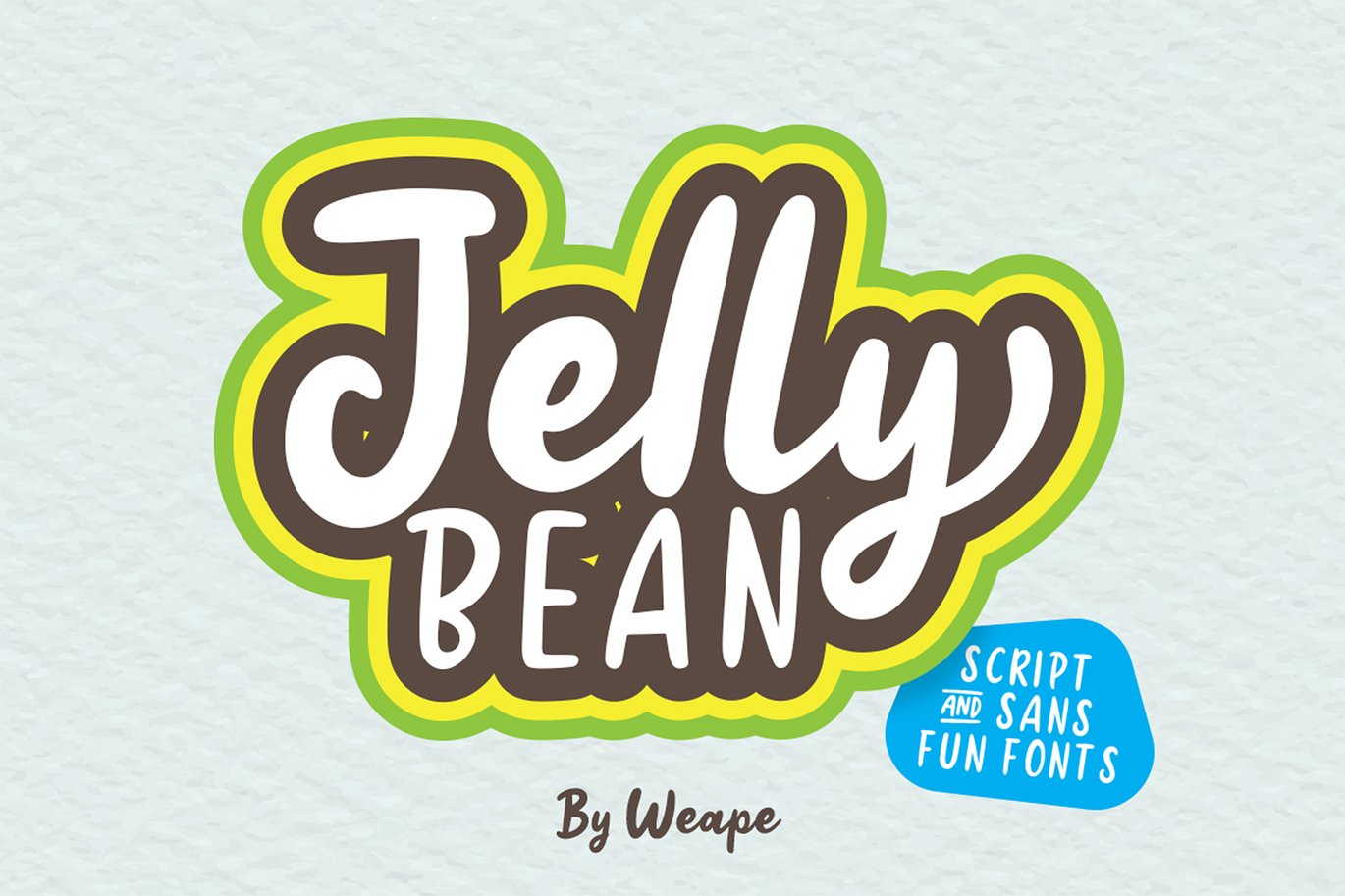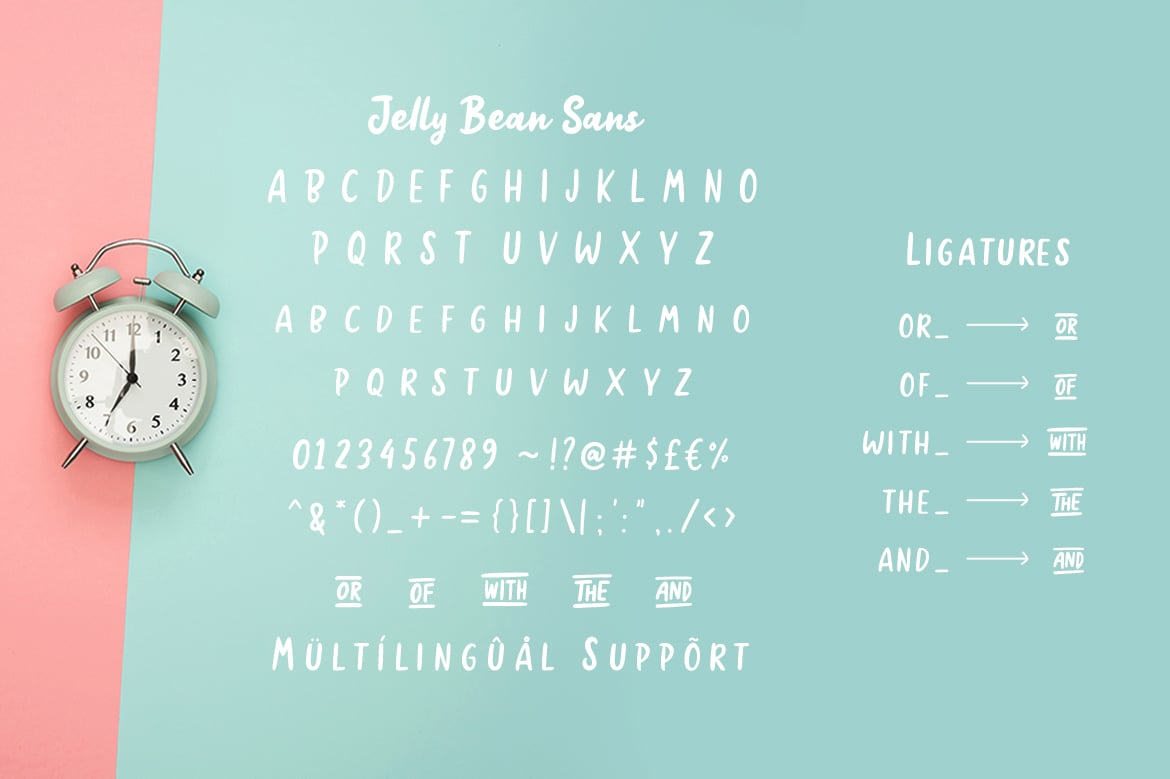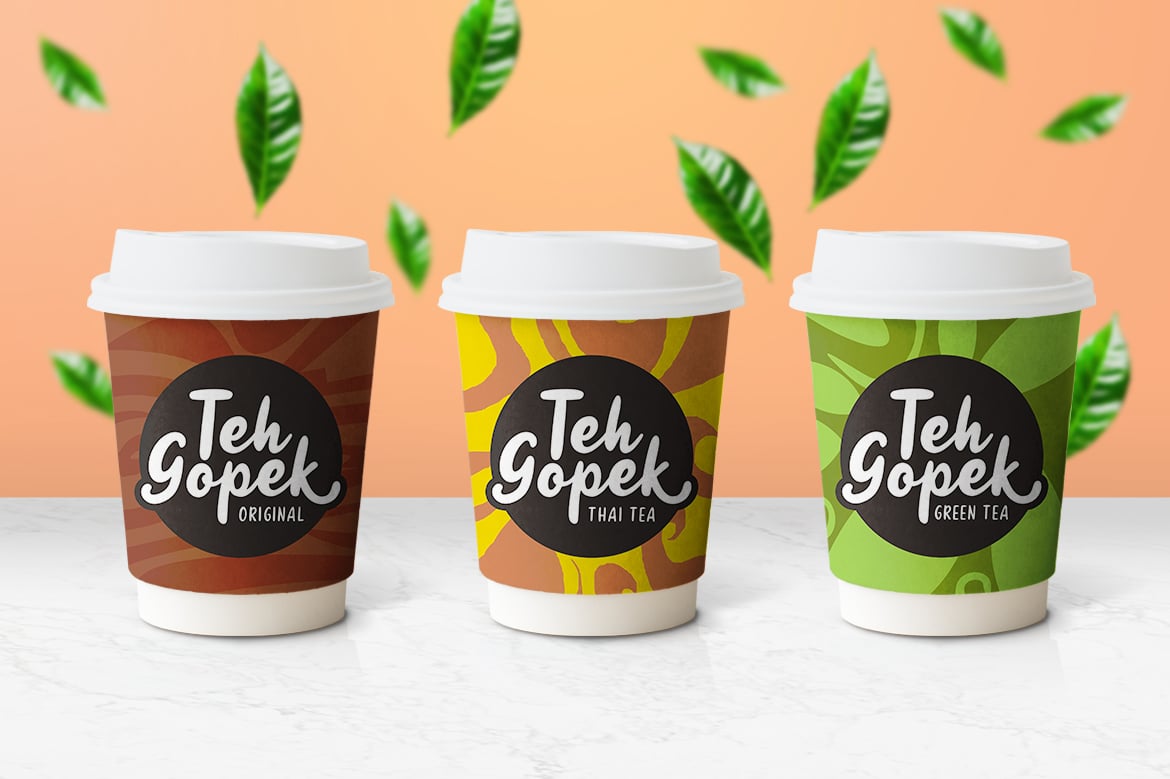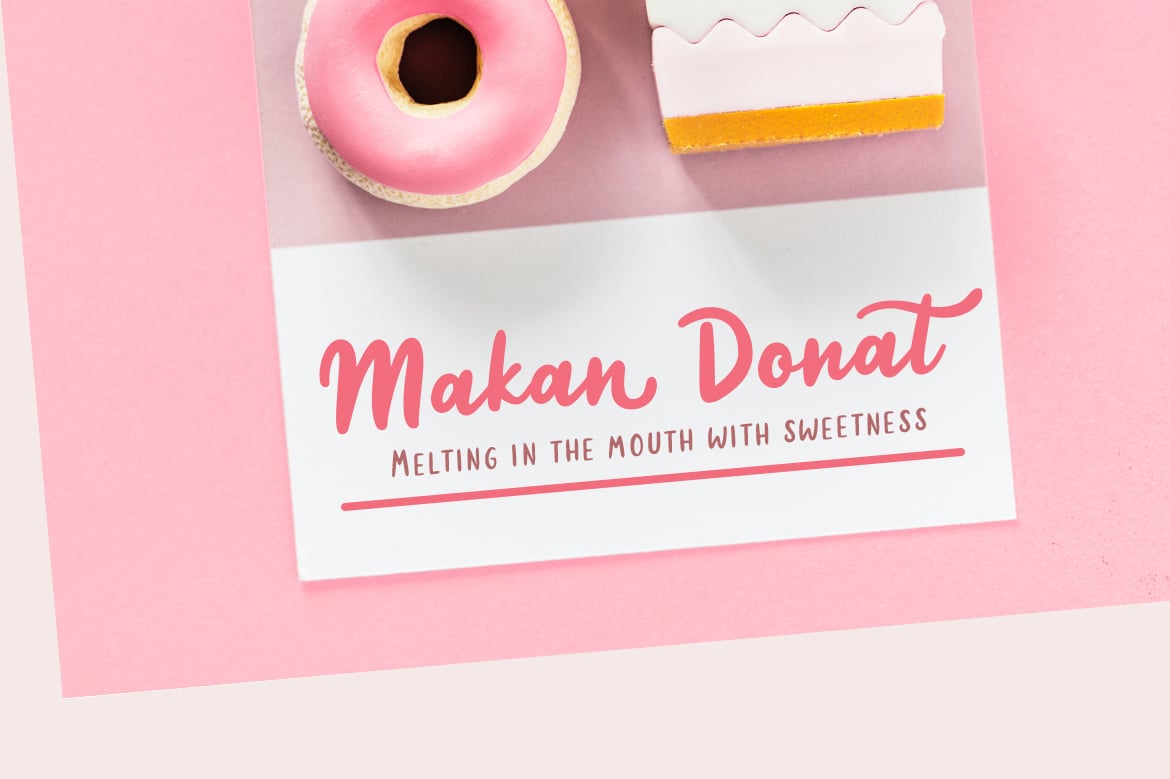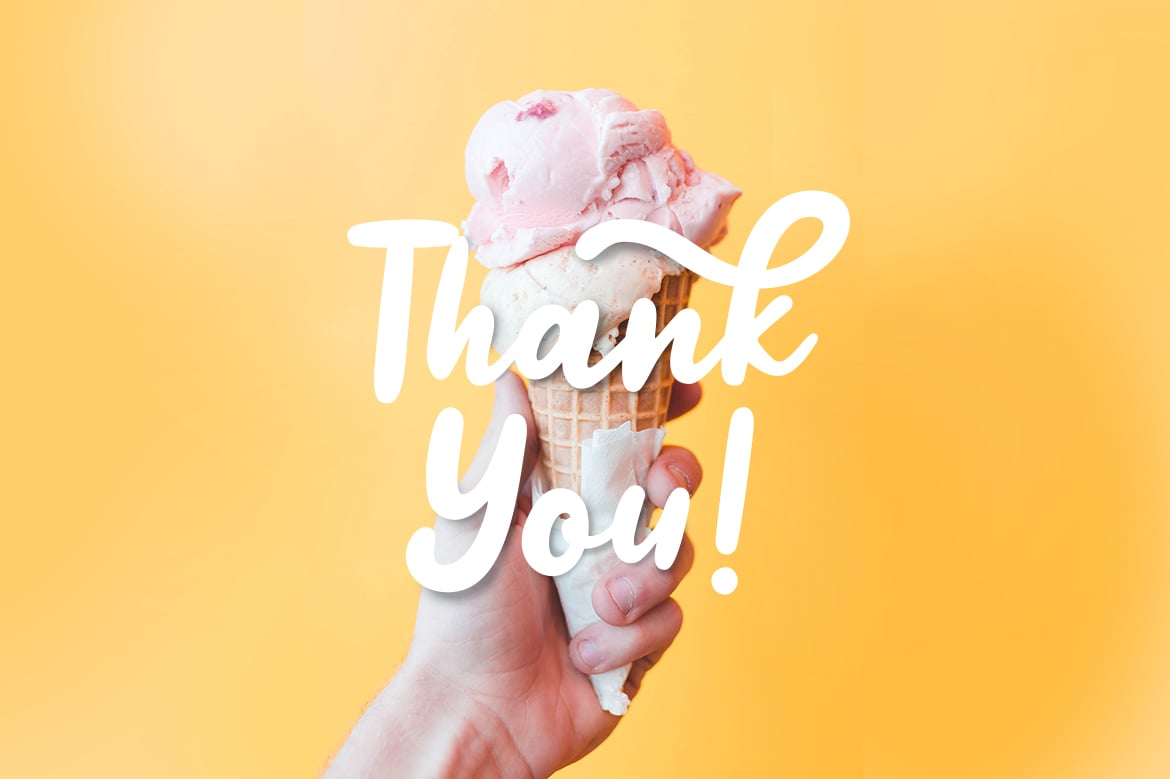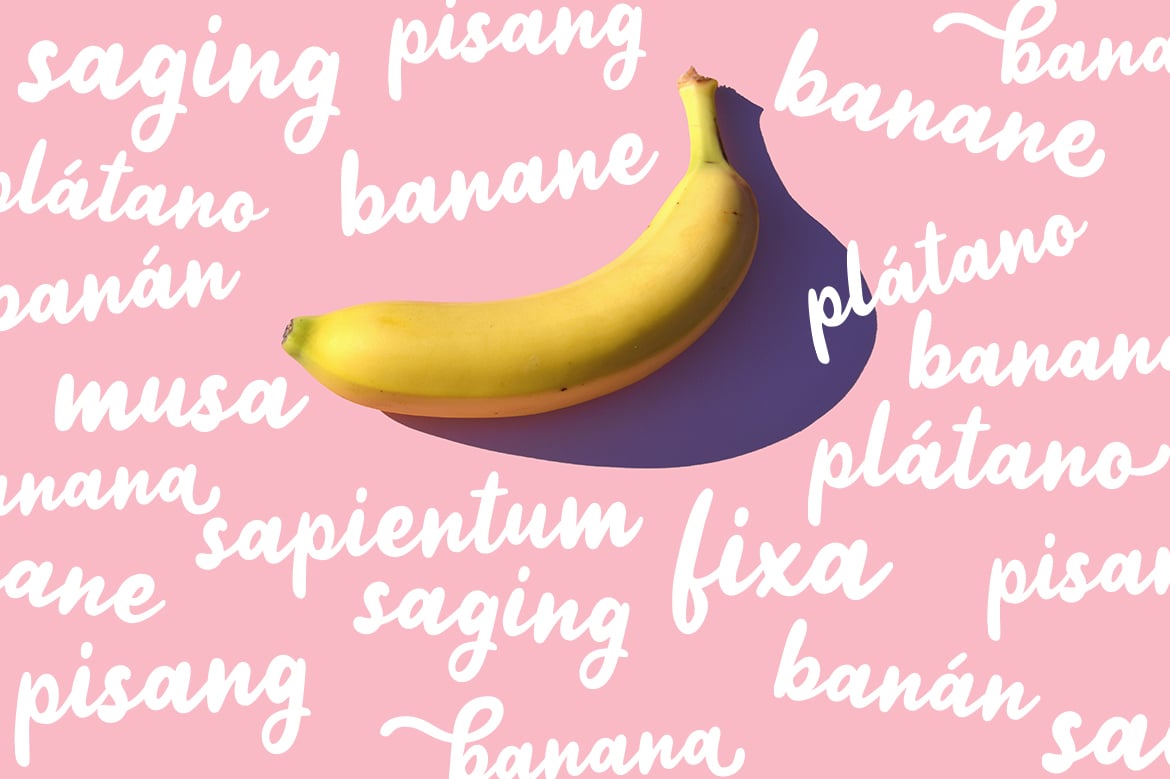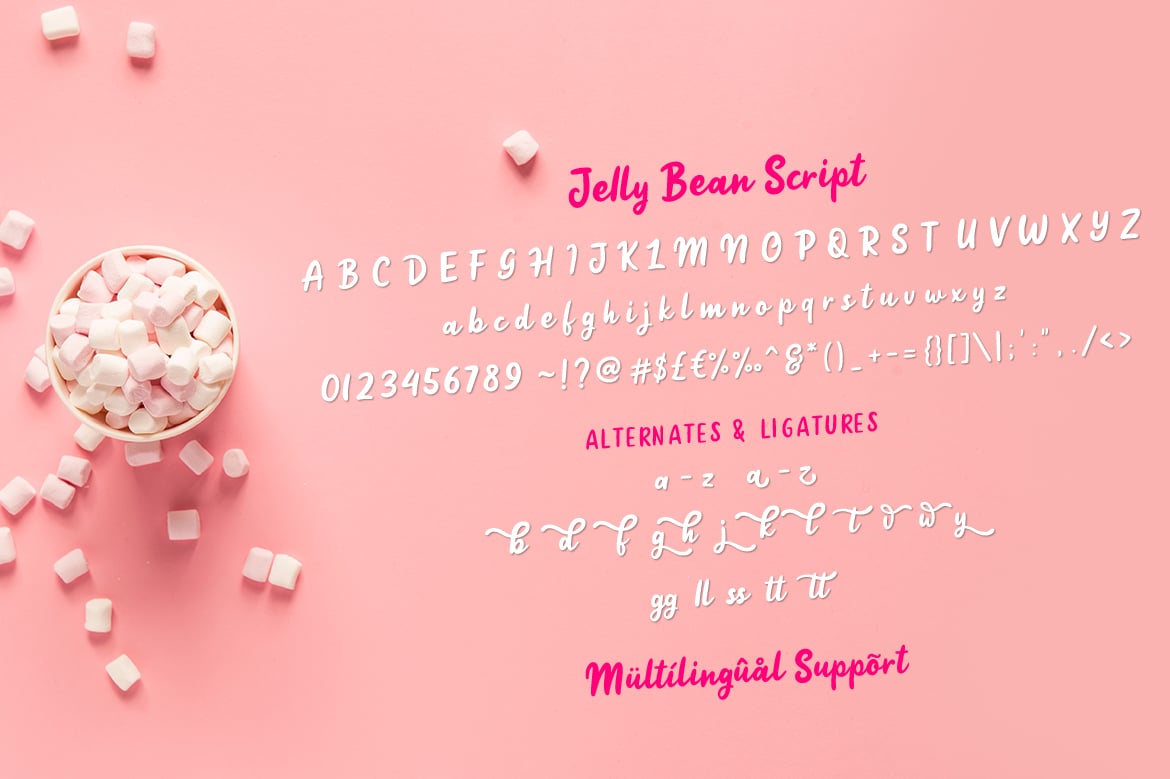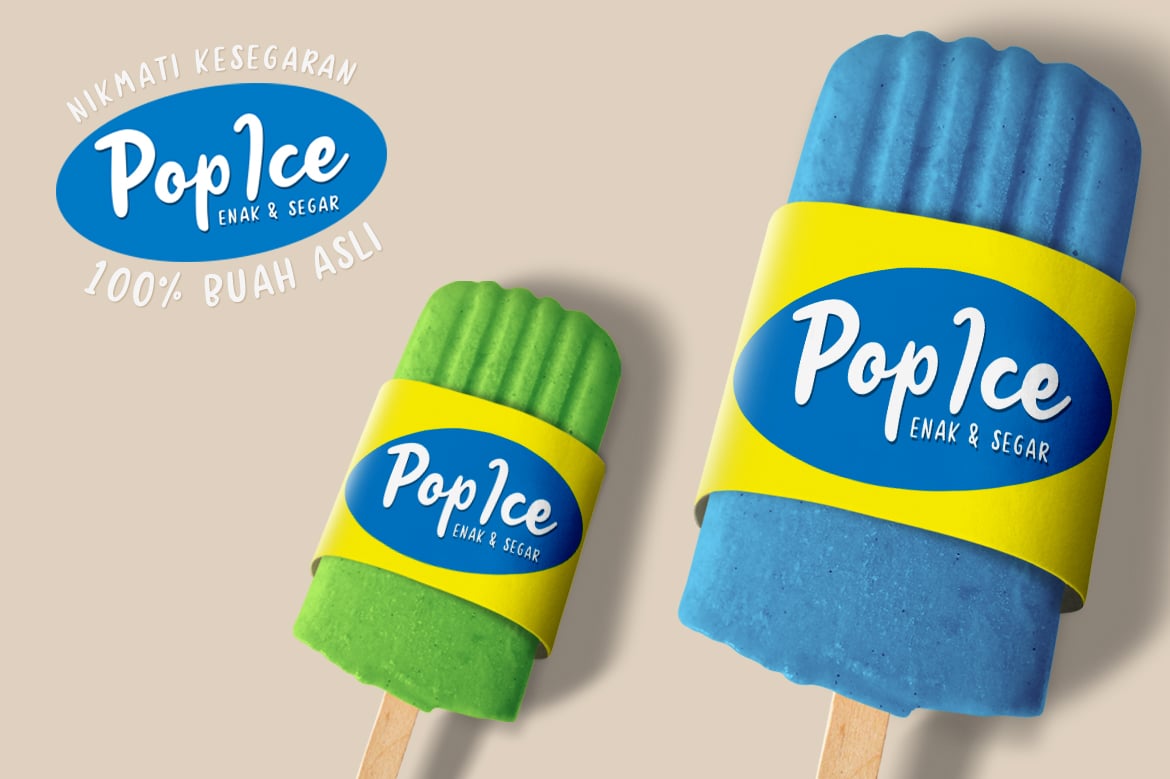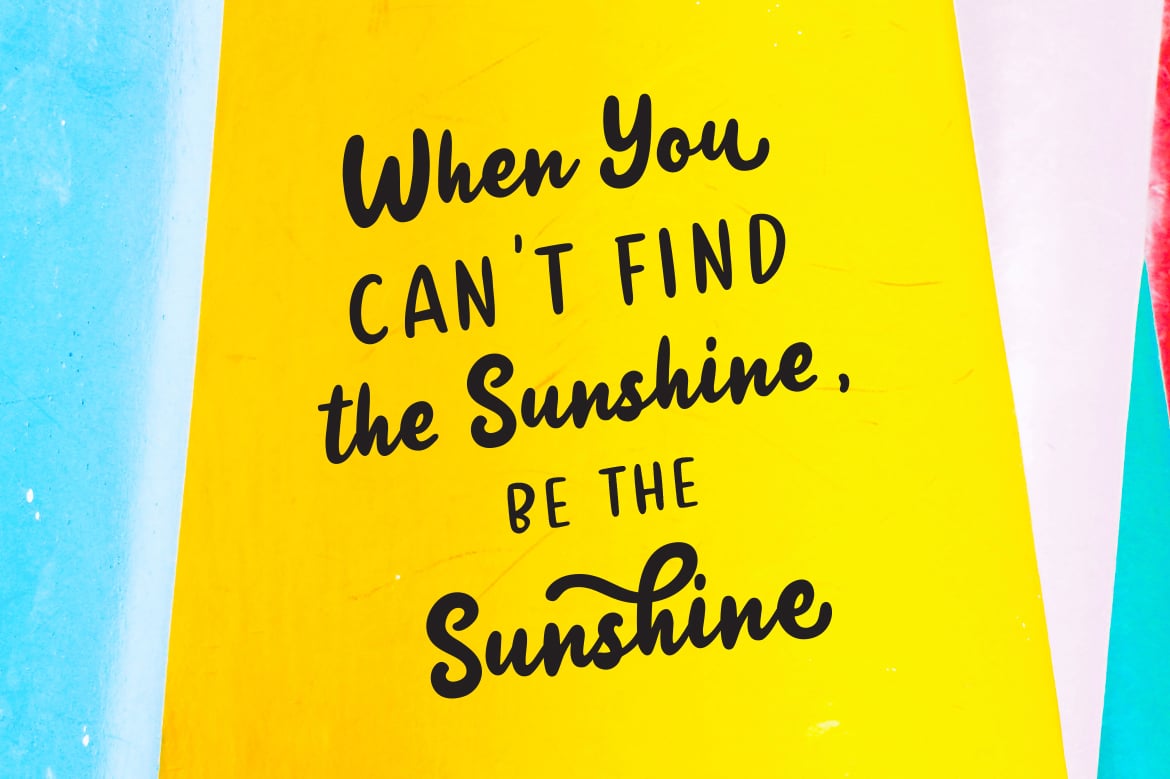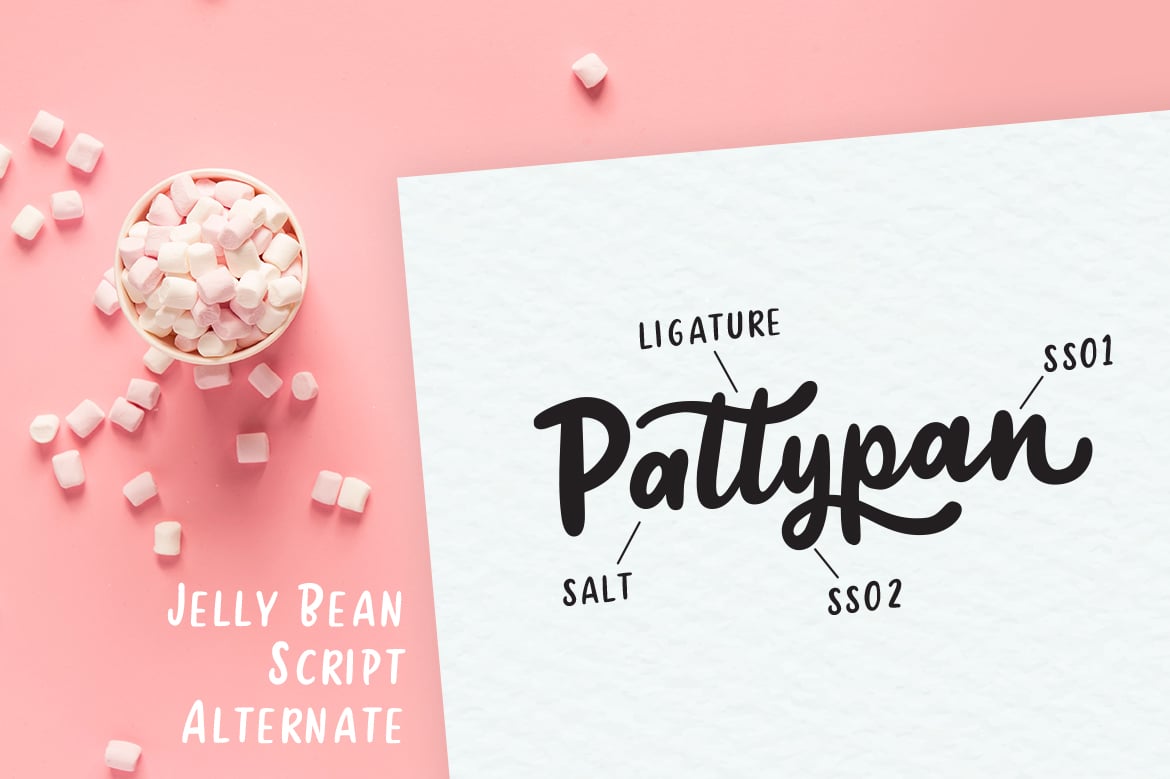
Jellly Bean Script & Sans Fun Font
Introducing Jelly Bean Script & Sans Fun Font, a new hand-lettered with the style of the fun bounce script and tall uppercase. Which is you can combine the two font styles to create a cute and fresh design.
Jelly Bean is very suitable for logo design, kids t-shirts, birthday cards, cover book, quotes, packaging and of course much more. It contains ligatures and alternatives to finish it off and give it a unique style